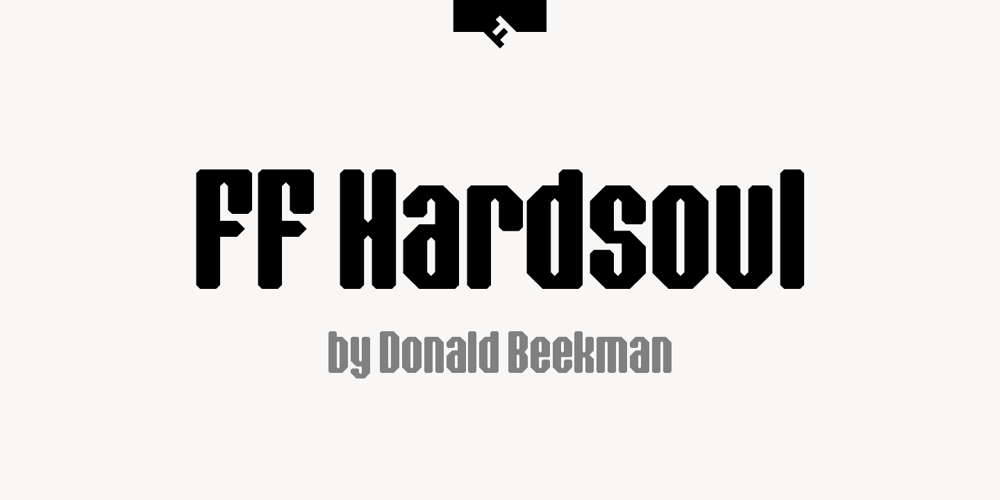
FF Hardsoul Font Family was designed by Donald Beekman and published by FontFont. FF Hardsoul contains 5 styles and family package options. Dutch type designer Donald Beekman created this display FontFont in 2006. The family has 10 weights, ranging from Light to Ultra and is ideally suited for festive occasions, music and nightlife as well as poster and billboards. FF Soul provides advanced typographical support with features such as ligatures, case-sensitive forms, fractions, and super- and subscript characters. It comes with proportional lining figures.